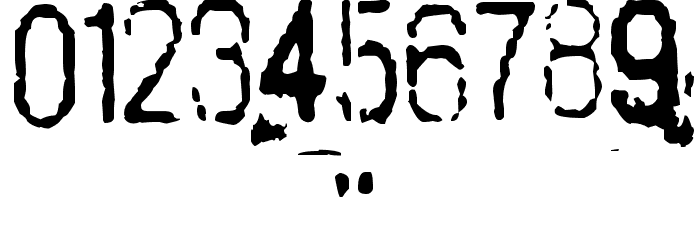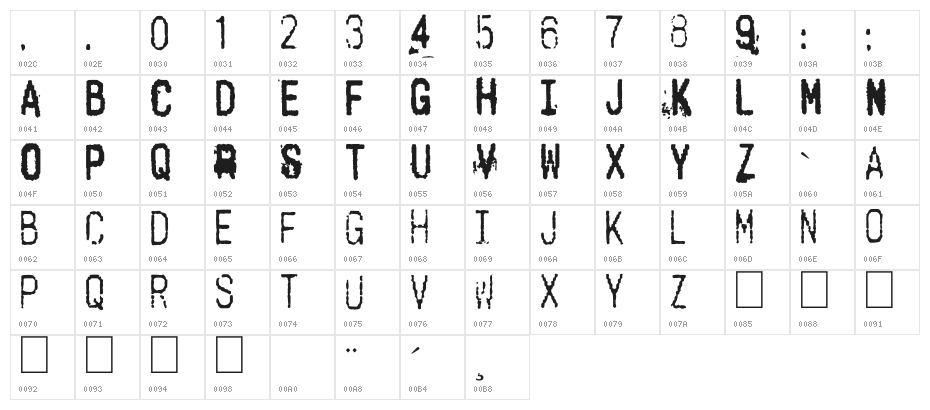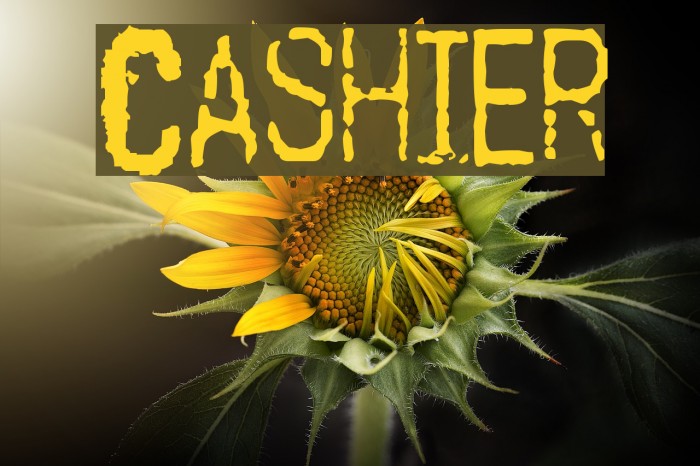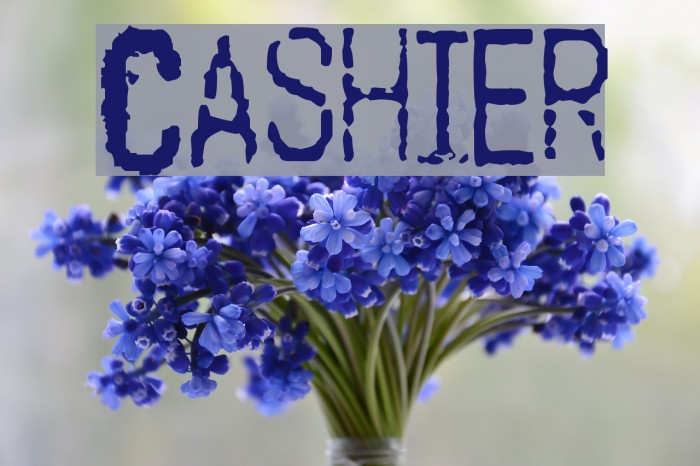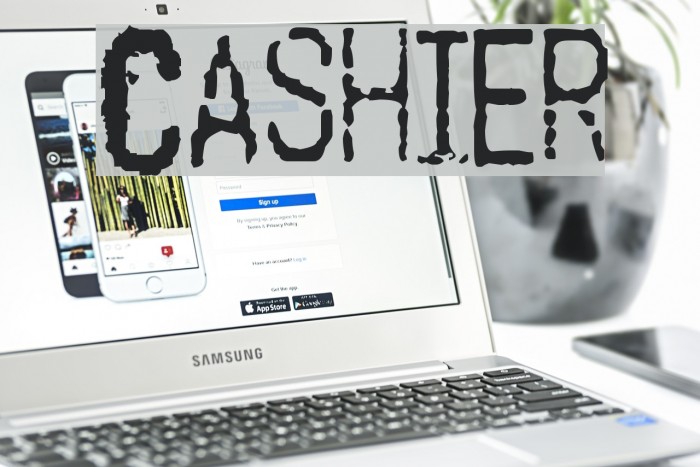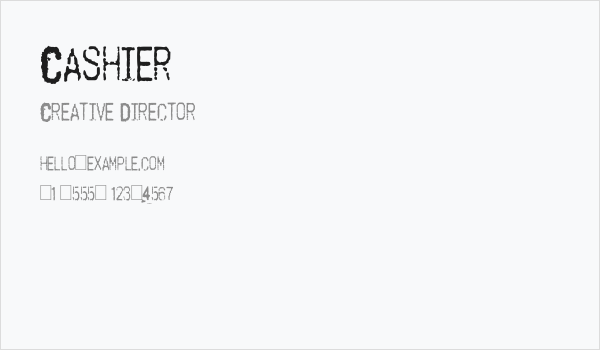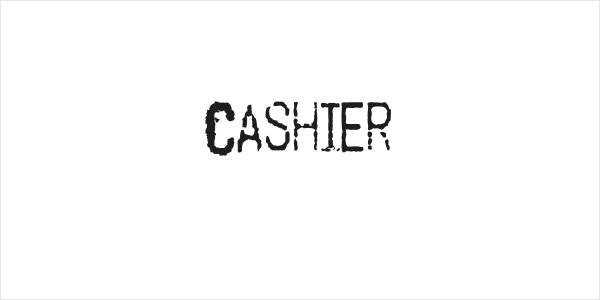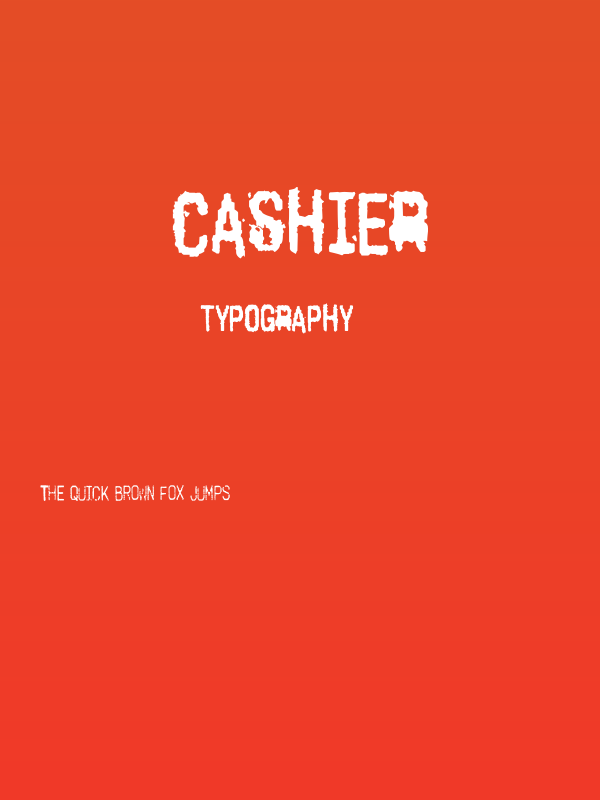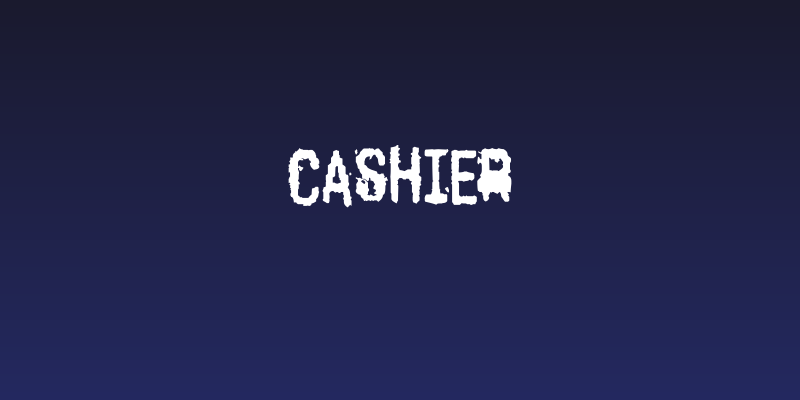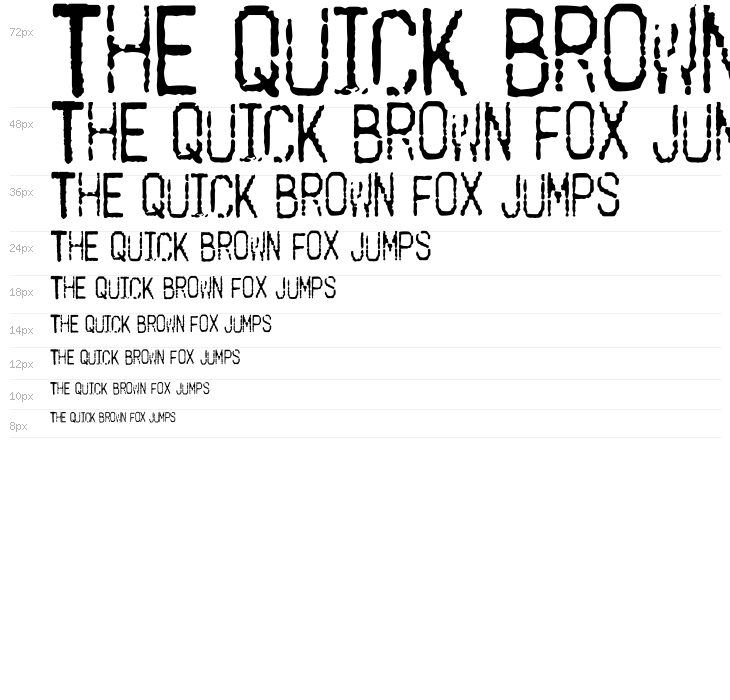
Cashier Font
Cashier Description
This font features a distressed, grunge style that gives it a rugged and worn appearance. The characters are bold and have a rough texture, resembling a stencil or stamp effect. The uppercase and lowercase letters maintain a consistent design, with irregular edges and a slightly uneven baseline, adding to the chaotic aesthetic. The numbers follow the same style, ensuring uniformity across all characters. This font's unique, weathered look makes it ideal for projects that require a vintage or industrial feel.
| Proposed Projects | Ideal for album covers, posters, branding for edgy or alternative products, and any design needing a vintage or industrial vibe. |